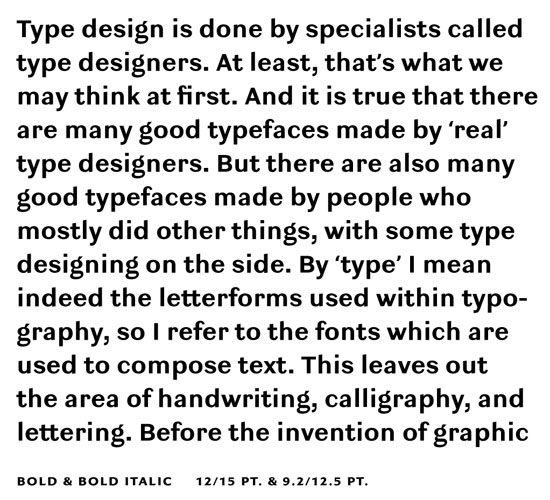
Ludwig (OurType)
OurType Ludwig is the latest typeface designed by Fred Smeijers. Based on first German “grotesque” sanserifs made in sizes suitable for texts, Ludwig embodies Smeijers’s personal vision of how an early 19th-century sanserif design might
look and perform today.
“Ludwig charms simply by being there, without looking too smooth and beautiful,” says Smeijers. “Capturing that charm - a certain clumsiness typical of early sanserifs - was not an easy task, yet Ludwig gets it right.”
Ludwig is designed as a companion to OurType Arnhem. Their contrasts are complementary while their proportions are the same. Ludwig and Arnhem also share most weights, which makes the two designs at once well suited and effective counterparts.
Great for packaging, striking in headlines, catchy in posters and, above all, remarkably pleasant in text, Ludwig surprises - and delivers - with its all-round qualities.
Na gut, dass Du für die Abbildung den fetten Schnitt gewählt hast. An die anderen muss ich mich erst noch ein bisschen gewöhnen. Und mit der Arnhem würde ich den Stiefbruder auch gerne mal sehen.
Schöner Headlinefont, für Fließtext in meinen Augen unbrauchbar, wie das Beispiel zeigt.
Find ich auch.
Ziemlich flimmrig in kleineren Größen, aber die einzelnen Buchstabenfeatures sind ziemlich geil. a und g, oh, schön!
Aber findet ihr nicht auch, dass sich Ludwig und Parry ähnlich sehen? Fiel mir beim drüberschauen eben so ein bißchen auf… Weiß auch nicht…
huu - ich finde ja gerade das a ... mit Verlaub - ich weiss, es soll so aussehen. Da ist die Parry aber um einiges eleganter (gut, soll wahrscheinlich auch nicht elegant aussehen, ich weiss).
Ach ja, und das g hat Ludwig von Verena Gerlach.
Ja, okay - nicht ganz eins zu eins, gebe ich zu. Aber Verena hat mal in Verband mit ihrem Diplom ein Daumenkino mit der Evolution der Karbid »g«'s gemacht. So ein Ohr hat sich mir daraus eingebrannt. ((kann hier irgendwie kein Bild posten))
Aber lenken wir doch mal von dem a, f, s und G ab (an die ich mich wohl noch ein bisschen gewöhnen muss) und wenden uns den überaus famosen Ziffern zu! That's what I call elegant!
Look at the 4, 5, 6, 9, 0! Oder das Q!
Perhaps we should see the face more in the tradition of the really early Early-Sans. Figgins had such stange S's as well. But since Ludwig is supposed to be a hommage to the early german Grotesk, we should have a look at Neue Moderne Grotesk (or Edel Grotesk/Aurora/Favourit) von Ludwig Wagner, Leipzig ca. 1914 (which is, as we all know, a remote relative of Neuen Haas Grotesk).
Although Ludwig is far more wide, round and has more contrast, I think you can spot some similar ideas (look at the r, s, the bowl of the a f.e.). I do not mind the locker spacing, that is also typical for the rare really old sans in text sizes. If you want to use it for headlines you can always reduce the tracking.
So I have to admit - yesterday I thought, I would not "get into" dear Ludwig that fast, but meanwhile, having printed out the speci, I really like to look at it. Maybe not using it in print, but sitting here, admiring the strange details, is bliss.